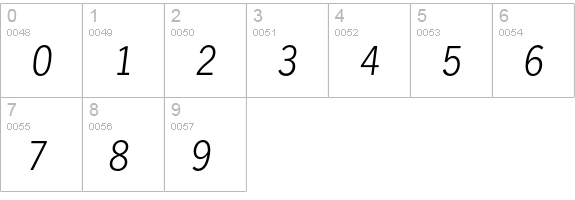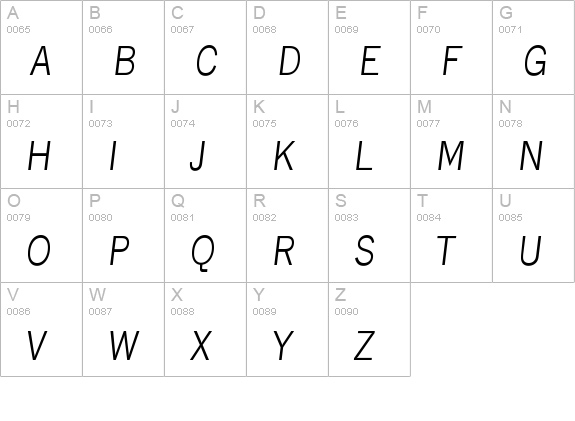
Hamburg-XlightIta Font Details
Introducing Hamburg-XlightIta, a sleek and modern font that exudes elegance and sophistication. This font is the perfect choice for any design project that requires a touch of refinement and class. With its thin and delicate letterforms, Hamburg-XlightIta adds a subtle grace to any text it graces. What makes Hamburg-XlightIta even more appealing is that it is available for free. Yes, you read that right! This remarkable font can be freely downloaded from FontsMarket.com, making it accessible to designers, creatives, and enthusiasts alike. With its effortless legibility and clean lines, Hamburg-XlightIta offers versatility for a wide range of applications. Whether it's creating captivating headlines, designing exquisite logos, or crafting elegant invitations, this font will surely elevate your designs to new heights. The distinctive features of Hamburg-XlightIta include its subtle curves and slender strokes, which give it a contemporary and refined appearance. Its lowercase letters are beautifully proportioned, while the uppercase characters exude a sense of strength and authority. Hamburg-XlightIta's extensive character set includes punctuation marks, numerals, and a variety of special glyphs, ensuring that your designs can express themselves fully. Additionally, this font supports multiple languages, making it a truly global typeface. So, why wait? Experience the beauty and versatility of Hamburg-XlightIta today by downloading it for free from FontsMarket.com. Whether you're a professional designer or a passionate hobbyist, this font is sure to become an invaluable asset in your creative arsenal. Don't miss out on this opportunity to enhance your designs with a font that effortlessly combines style and accessibility.